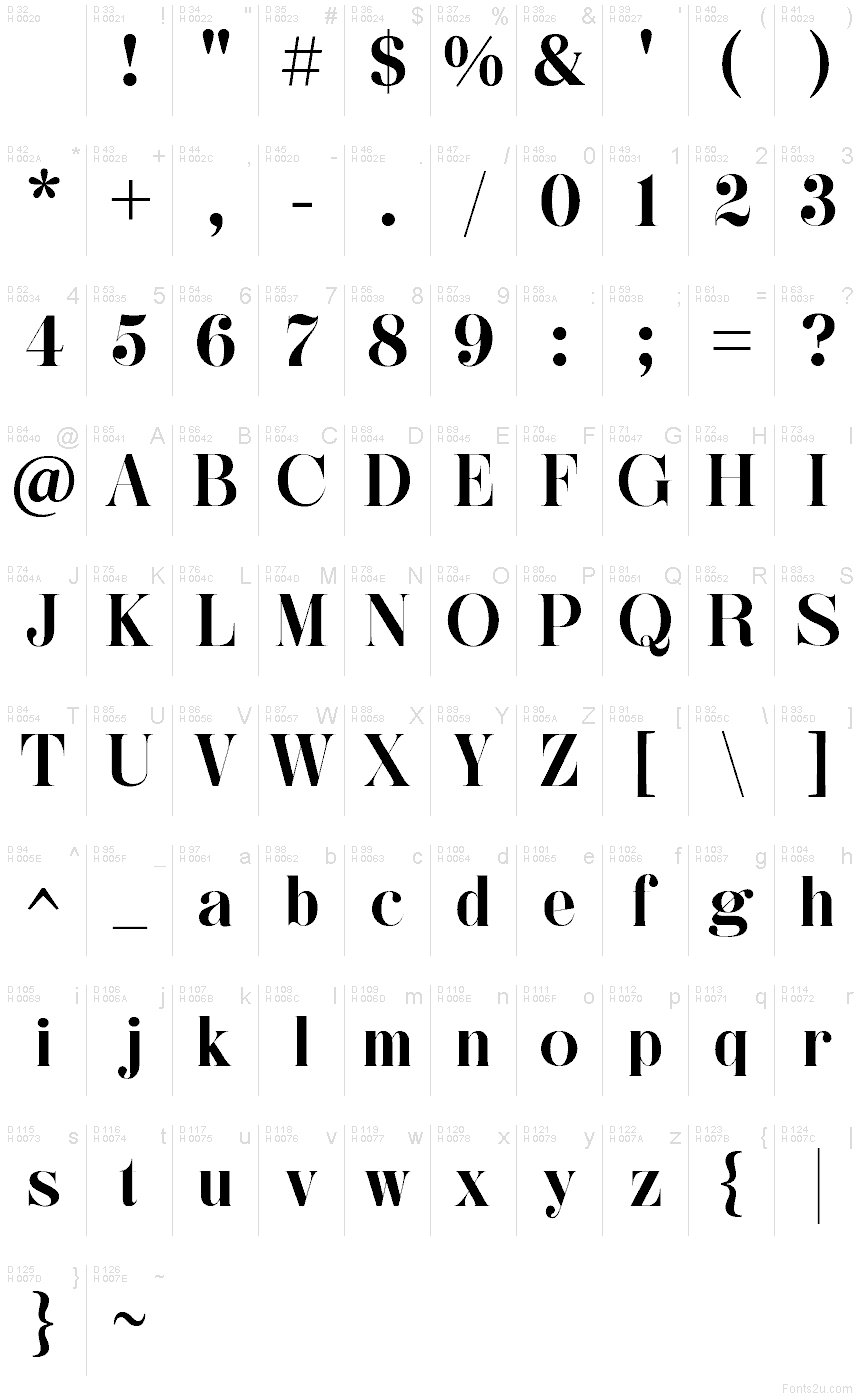
Bosting font by Graphicxell is a free serif font. It leans into bold, sculpted strokes and sharp, chiseled serifs, then surprises with sliced curves that catch the light like ink on coated paper. The rhythm feels confident and modern-broad verticals, taut counters, and a sly slash in rounded forms that adds a signature twist without getting fussy.
Using Bosting, headlines snap into focus and logos gain a tactile, fashion-forward edge. It works beautifully for editorial mastheads, boutique branding, packaging, posters, and event invitations. This free font thrives at large sizes where its carved details breathe; give it a touch of tight tracking for extra bite. Pair with a clean geometric sans for body text to keep the spotlight on Bosting’s sculptural voice.